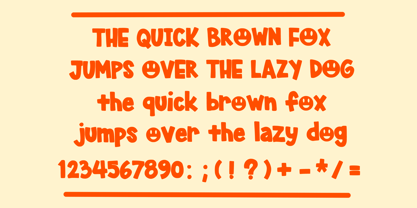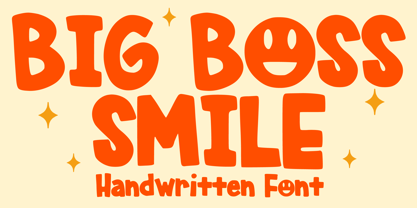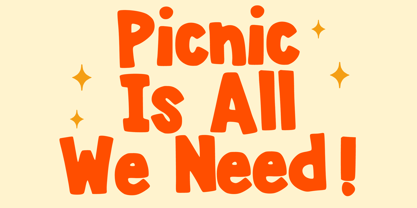
Big Boss Smile
by Mvmet
The Big Boss Smile Font Family was designed by Gabriel Valentinus and published by Mvmet. Big Boss Smile contains 1 styles. More about this family
Big Boss Smile is a bold marker font that bursts with fun and playful vibes while flaunting a unique smile twist in its design. This versatile display typography solution promises to take your creative projects to new and exciting heights. Big Boss Smile is the perfect choice to inject charm into countless design ideas. Picture it on vibrant stickers, stylish T-shirt prints, impactful logos, captivating book or magazine covers, engaging comic artworks, expressive cartoon sketches, and even in your everyday typing needs. Infusing that extra dash of cool into your projects, Big Boss Smile is the font that keeps your designs fresh and vibrant!
Designers: Gabriel Valentinus
Foundry: Mvmet